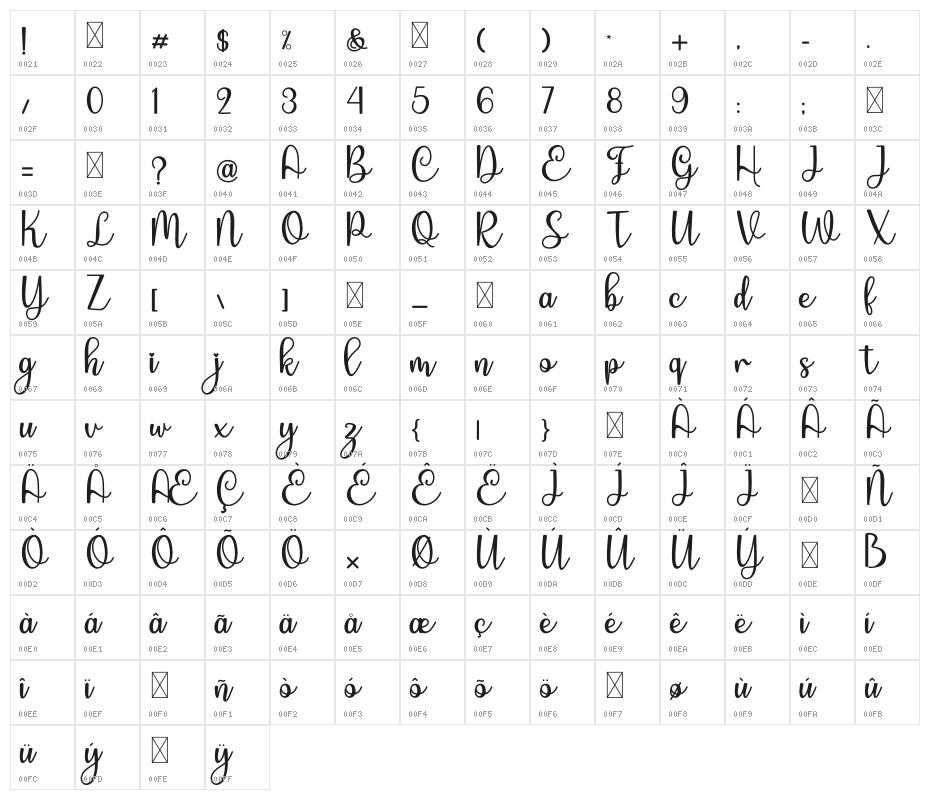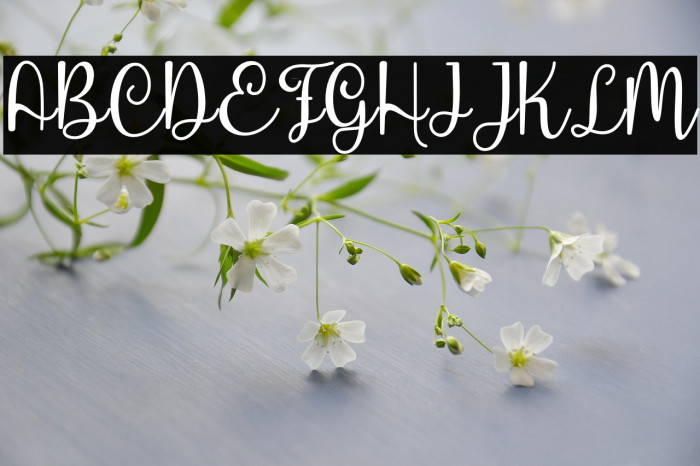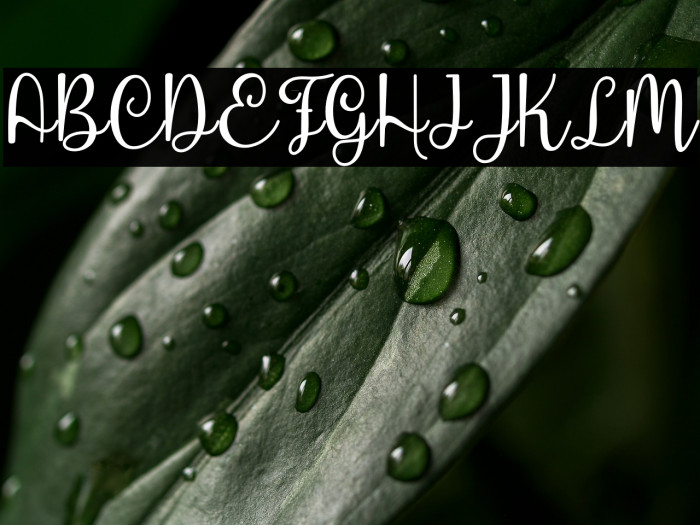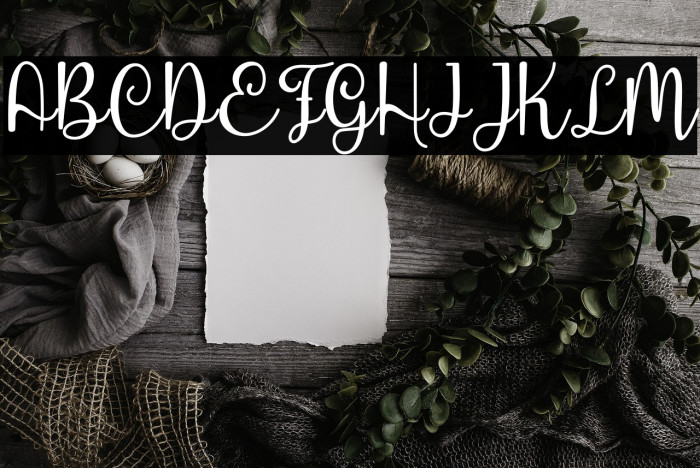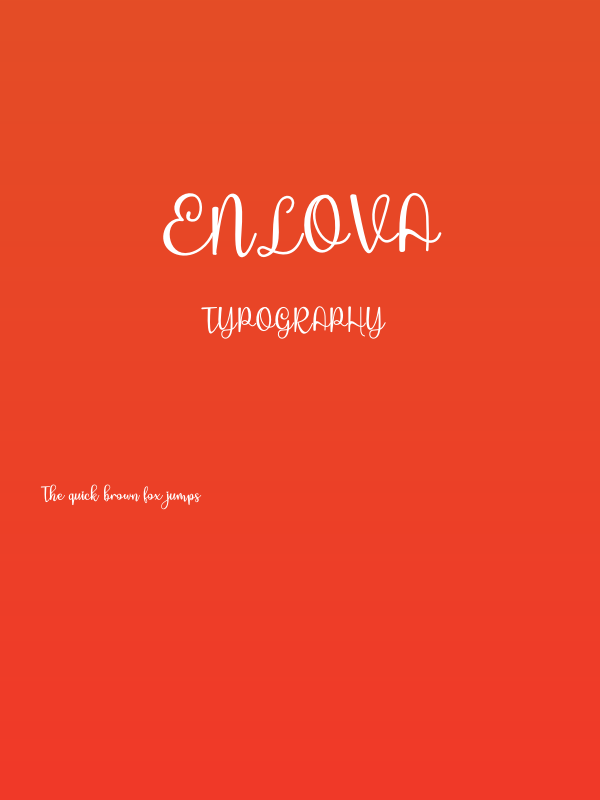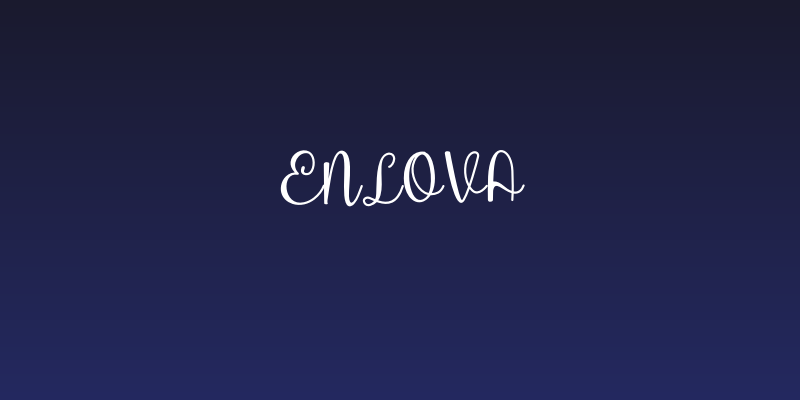
Enlova Font
Enlova Description
This font features a charming and elegant script style with a handwritten appearance. The uppercase letters are gracefully connected, while the lowercase letters exhibit a smooth, flowing design. The numerals are clear and easy to read, maintaining the font's overall aesthetic. Special characters are thoughtfully integrated, enhancing the font's versatility. The strokes are consistent, with a medium contrast that adds to its legibility without compromising its decorative appeal. This font is perfect for projects that require a personal touch, such as invitations, greeting cards, and branding materials.